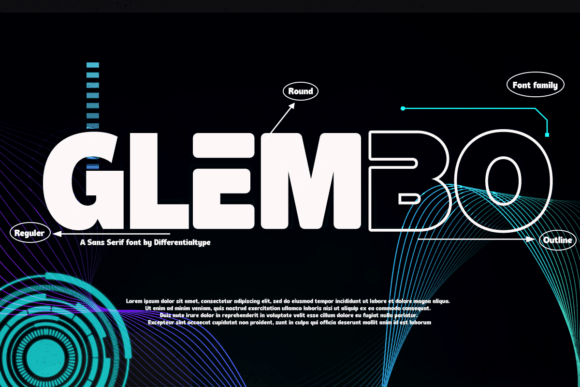
Behold Glembo Font, a striking sans display font family, masterfully crafted by Differentialtype, ready to elevate your digital creations. This bold and distinctive typeface boasts six captivating styles, each one a unique expression of creativity. Unleash your individuality and let Glembo transform your designs into captivating masterpieces.
With Glembo, versatility knows no bounds. Whether you're crafting captivating social media posts, creating eye-catching website headers, or designing awe-inspiring posters, this font will leave a lasting impression. Its bold strokes and dynamic curves command attention, ensuring your message cuts through the noise and resonates with your audience.
Step into a world of creative possibilities with Glembo. Its bold and confident demeanor is perfect for making a statement, while its inherent versatility allows it to effortlessly adapt to any project. From sleek and modern designs to playful and whimsical creations, Glembo has the power to transform your ideas into visual masterpieces.
Unlock the full potential of your creativity with Glembo. Its diverse range of styles empowers you to mix and match, creating unique combinations that reflect your personal style. Experiment with bold headlines, elegant body text, or eye-catching logos. The possibilities are endless, and the results are always stunning.
Don't settle for ordinary fonts. Embrace the extraordinary with Glembo. Let its bold personality and dynamic spirit infuse your designs with a touch of brilliance. Experience the transformative power of Glembo and see your creations come alive with a newfound energy and vibrancy.